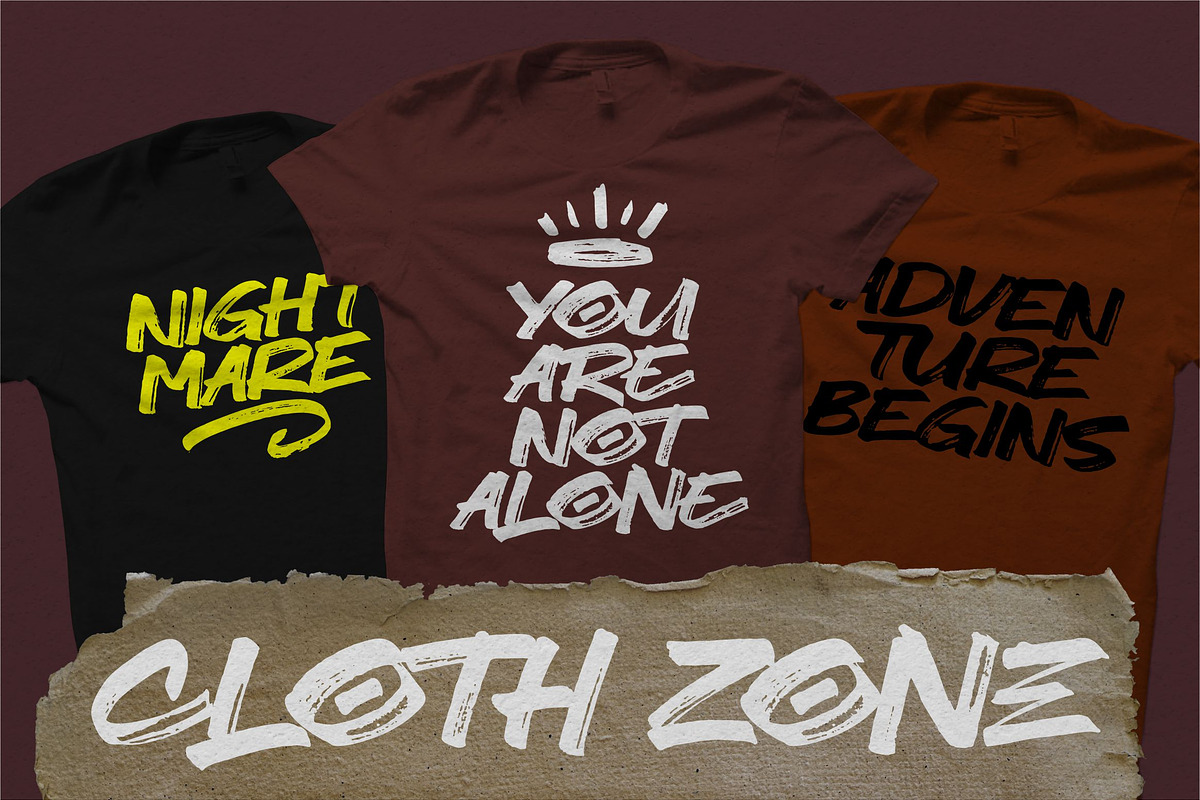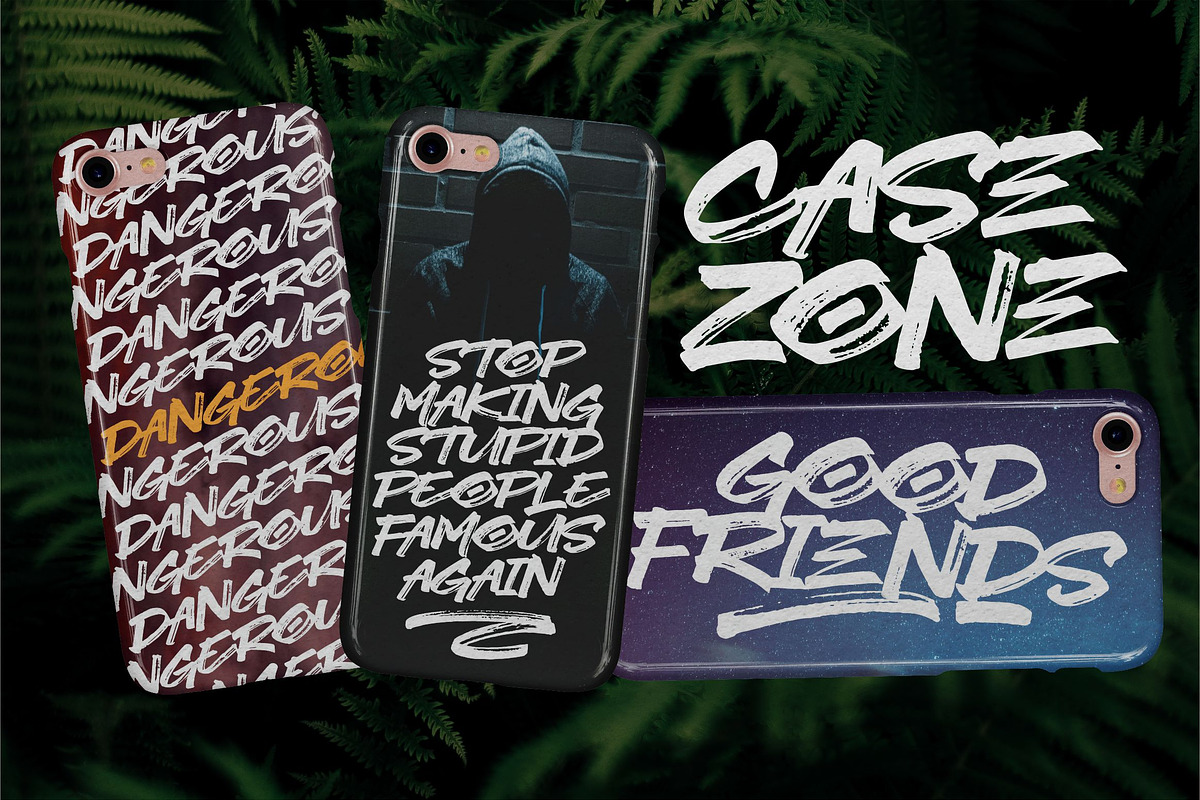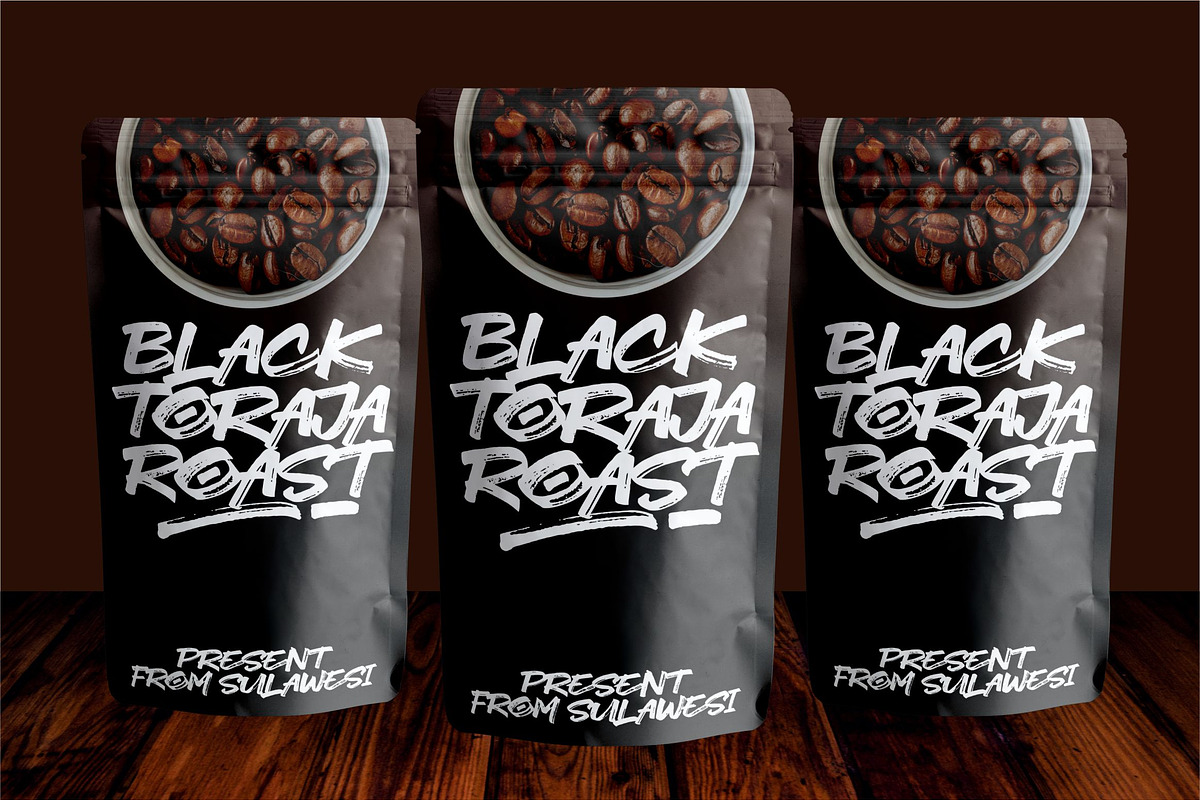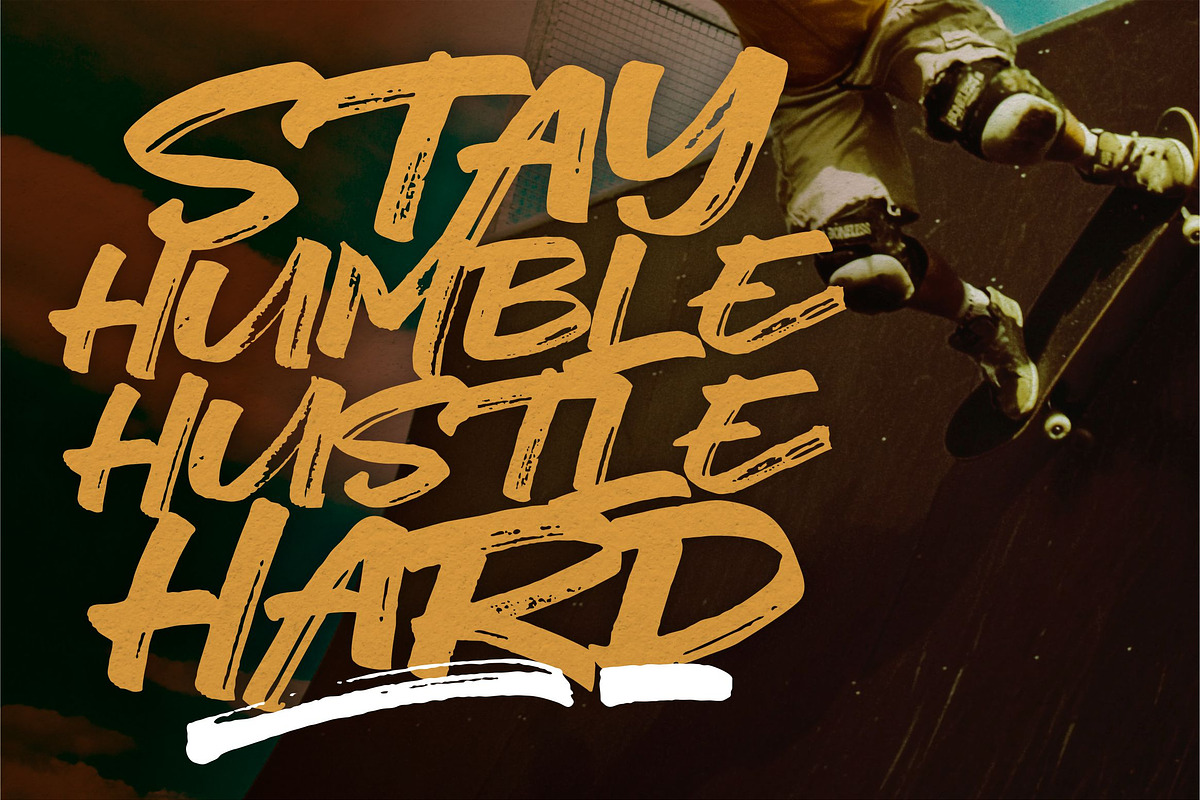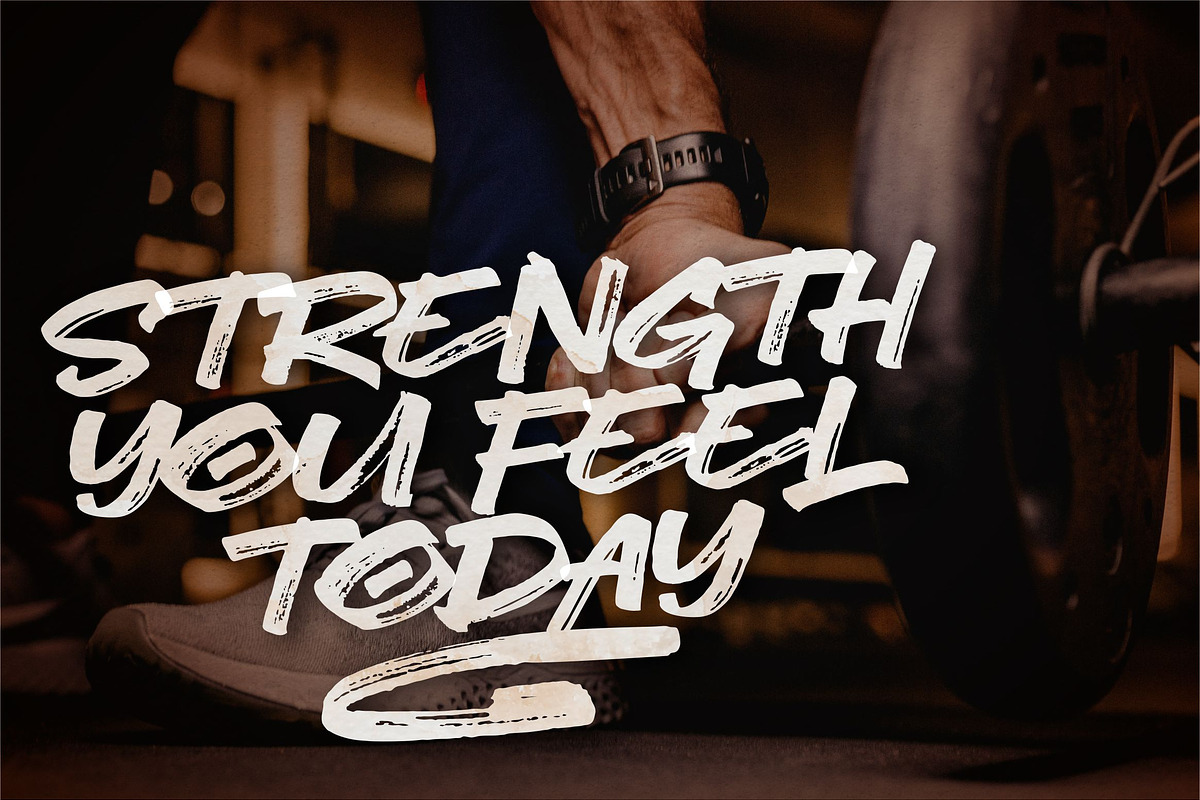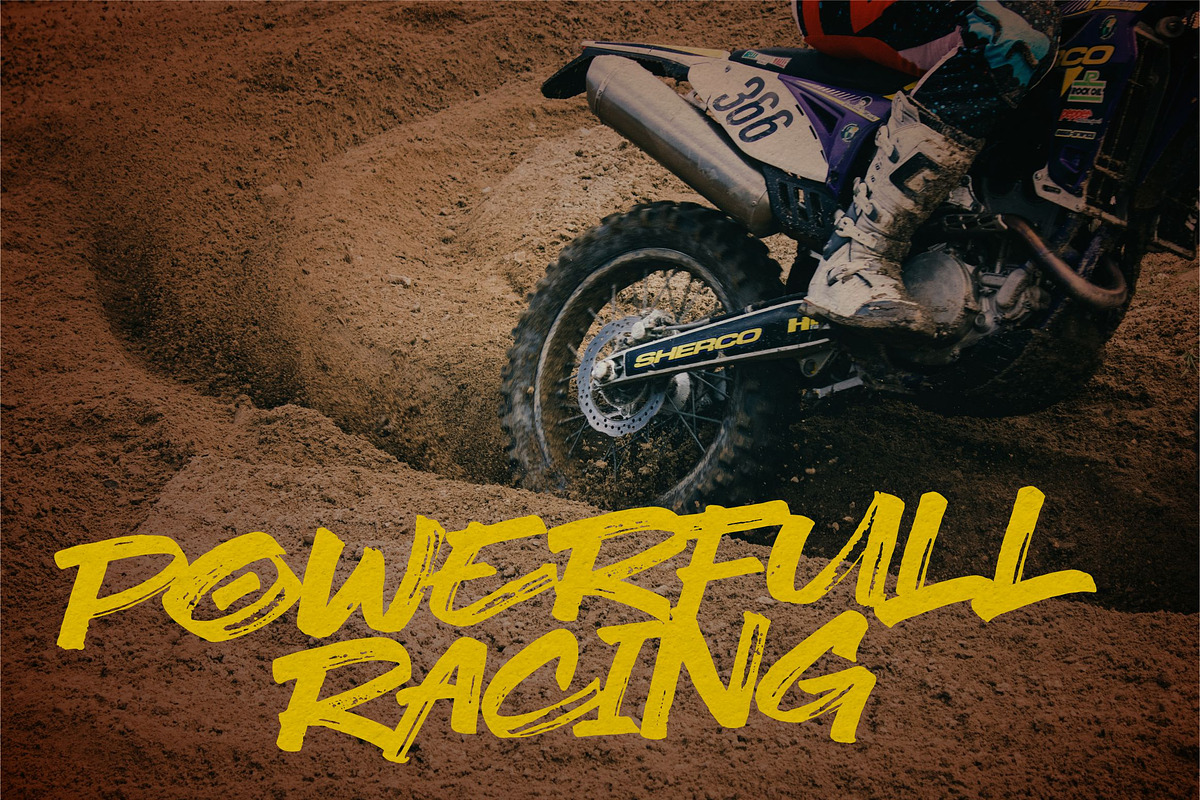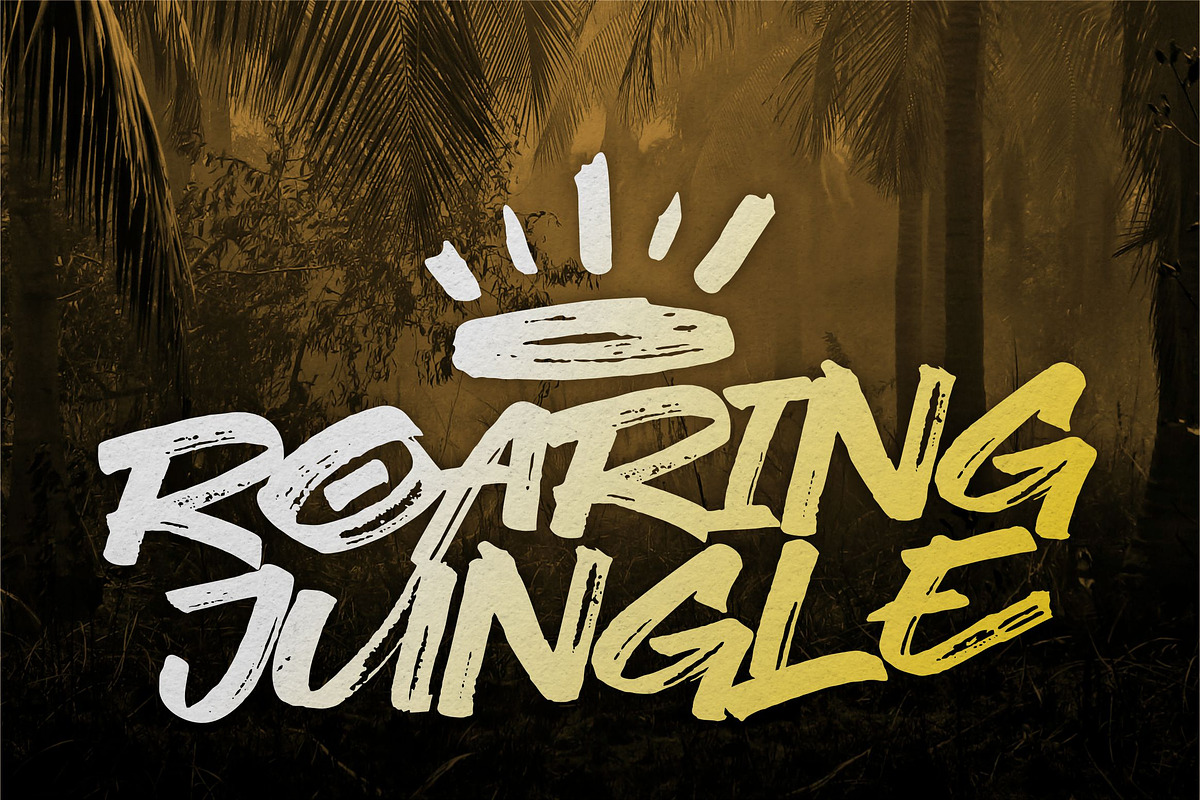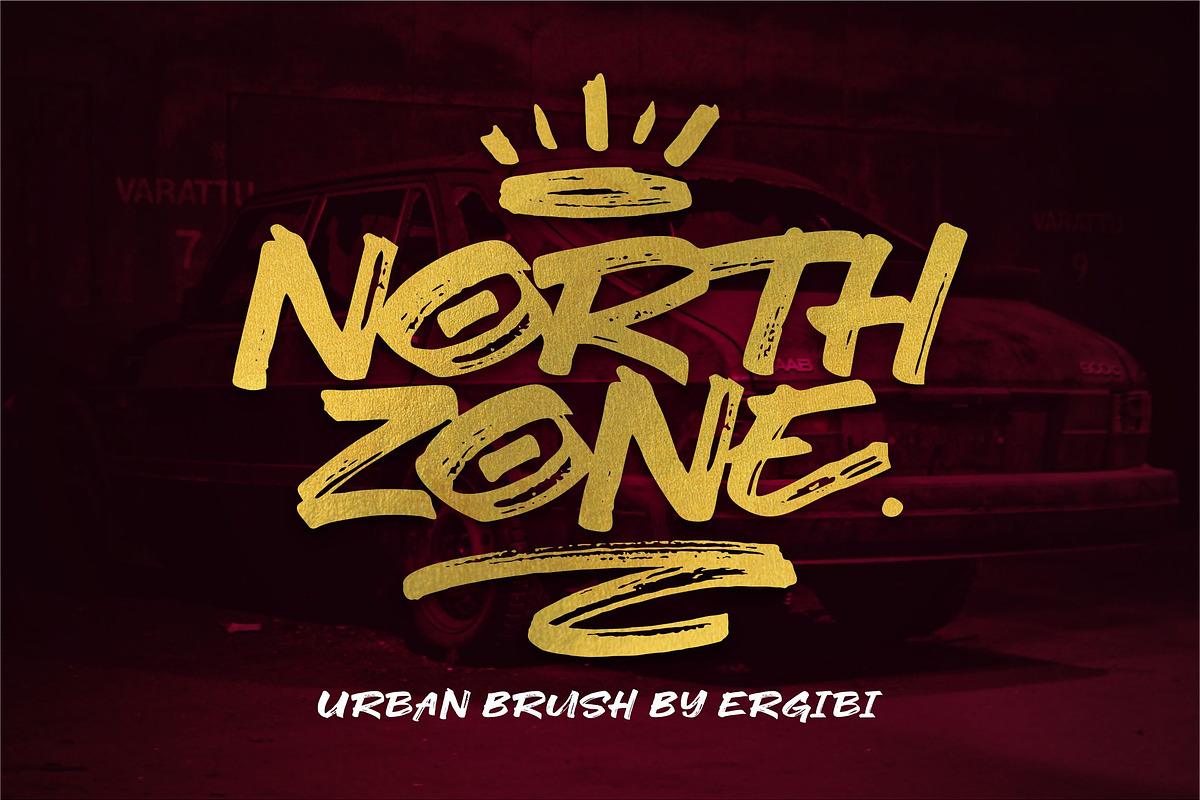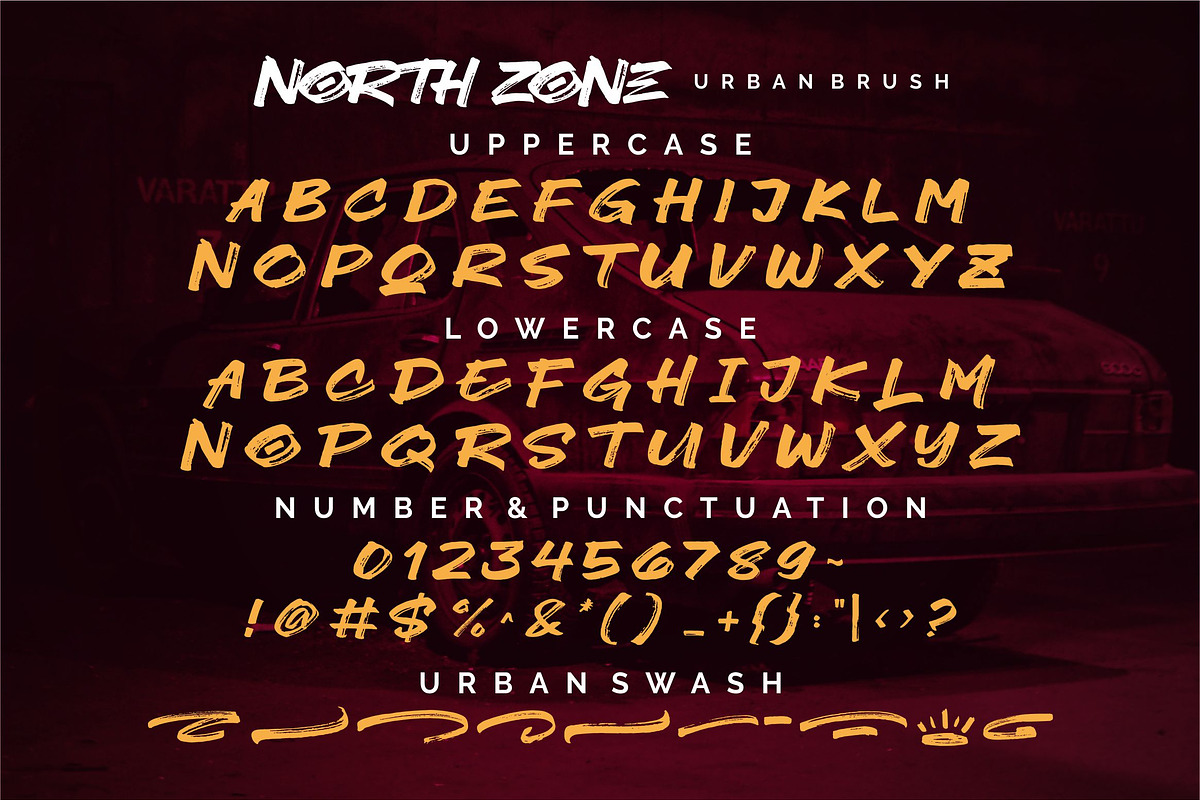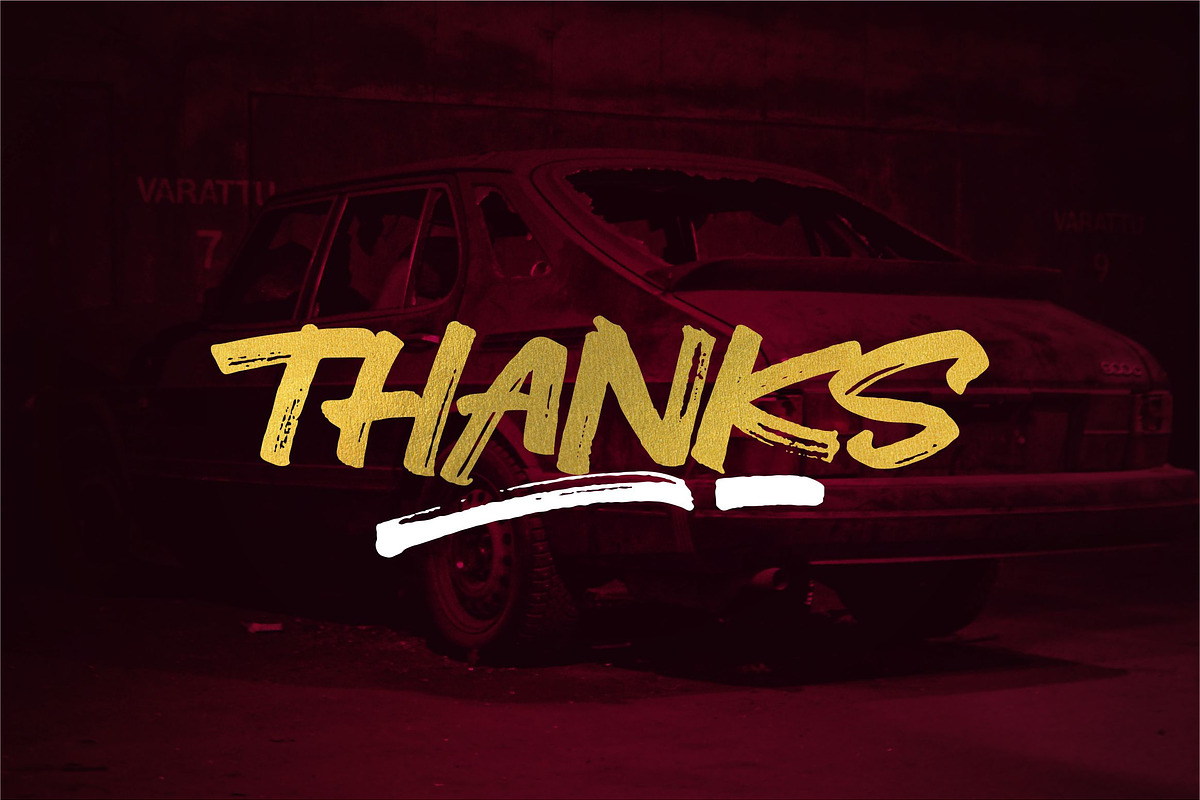
NORTH ZONE. //Urban Brush//
NORTH ZONE Urban Font is a supercharged, with extra attention to quick strokes and sharp details, NORTH ZONE It contains uppercase, lowercase and swash. NORTH ZONE is ideal for logos, apparel, t-shirts, hoodies, quotes, product packaging, or anything that needs a typographic turbo-boost and you’ll get a unique swash to accompany the font.
Language Support - We've added in a great deal of extra characters to support many different languages.